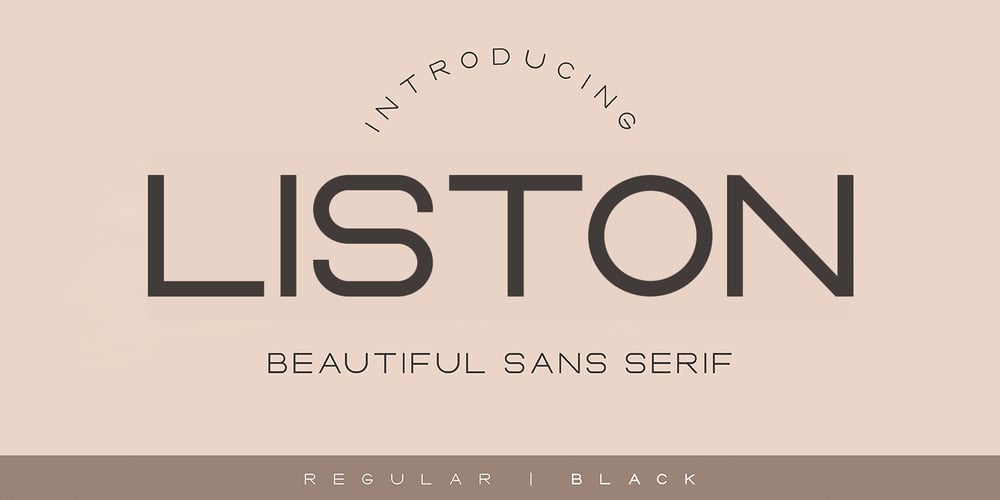
Liston Font Family was designed by khaidir and published by Gatype. Liston contains 1 styles and family package options. Liston is a modern multilingual elegant display font enhanced with ligatures, alternations, and strokes. Liston is a very versatile font character – with its seamless shapes and modern features it will cover a wide range of design projects from greeting cards to magazines, wedding invitations, websites, etc. The number of alternatives is incredible, from simple style alternatives to sweeps, ligatures, and alternatives.Enjoy!